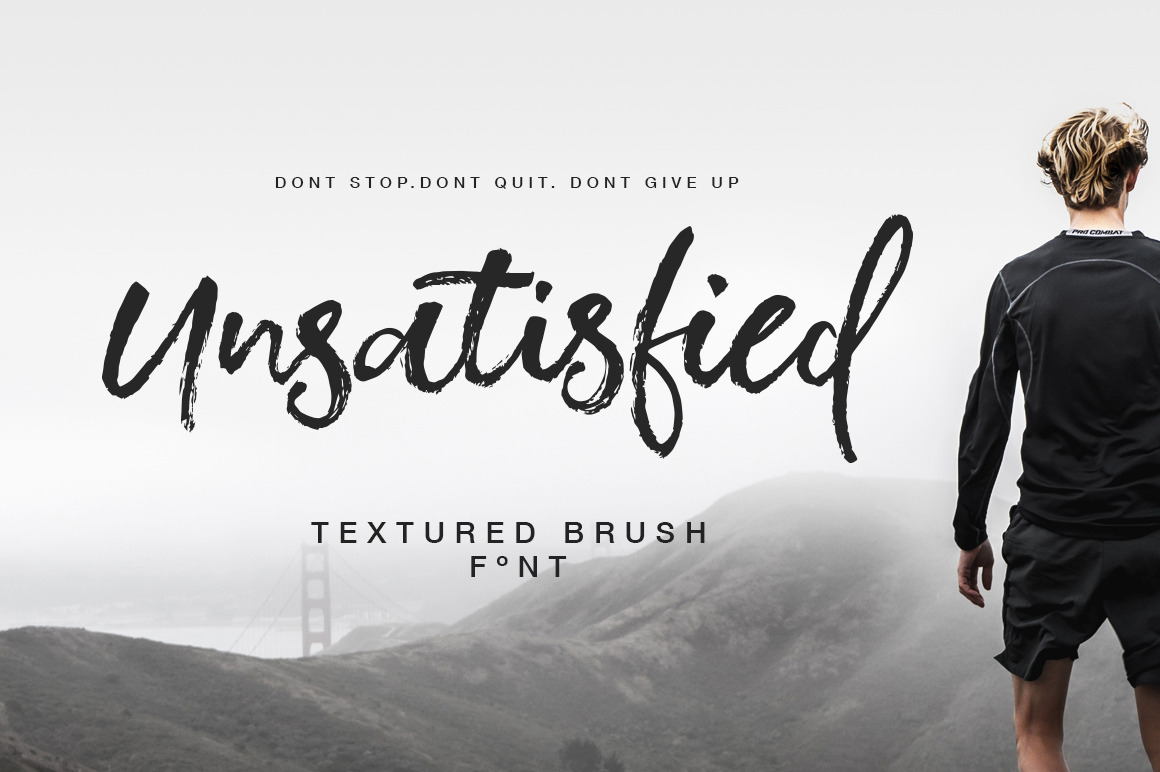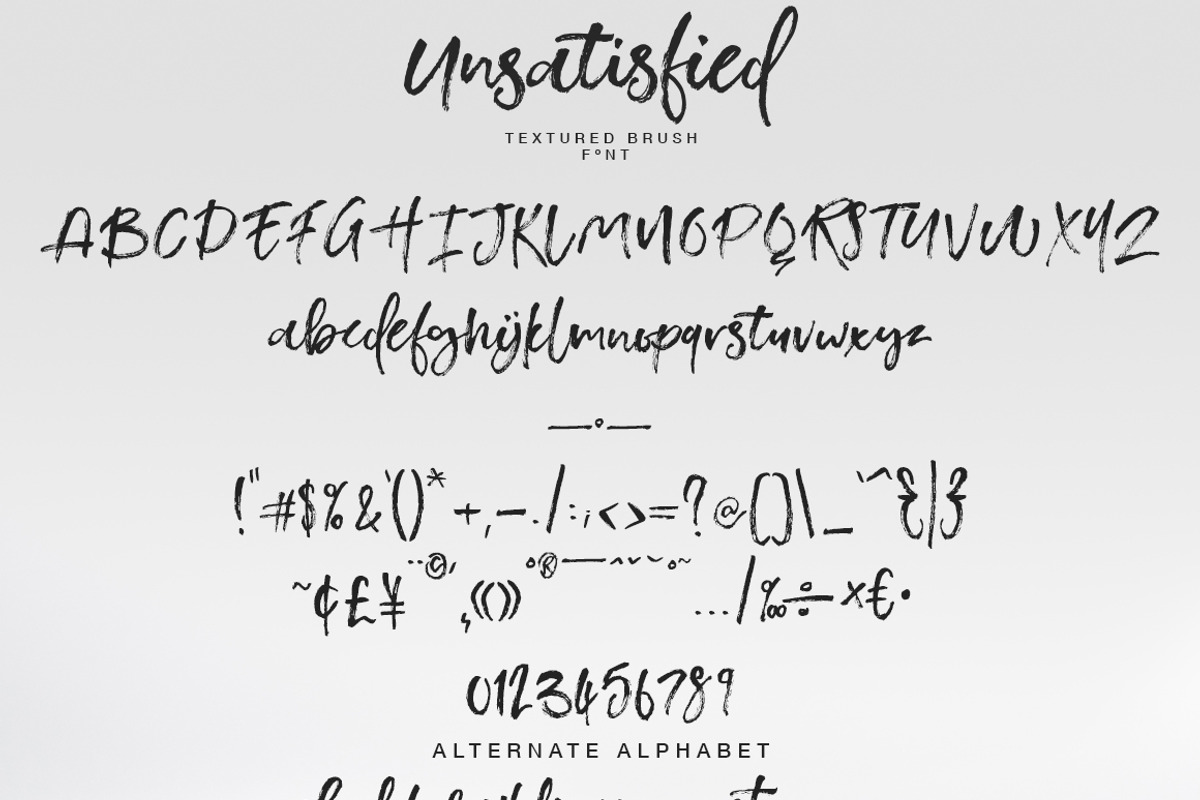
Unsatisfied Brush Font
Don't stop! Don't quit! Dont give up
Introducing Unsatisfied Brush Font. Handmaded real rough brush texture gives you more confidence and motivation. We are the designers we can not stop designing. So you can awesome designs with this font. Imagine it, turn reality your dreams.
Create print designs, greeting card designs, poster / flyer designs, apparel / t-shirt designs, web designs any many many kind of works to push your designs forward.